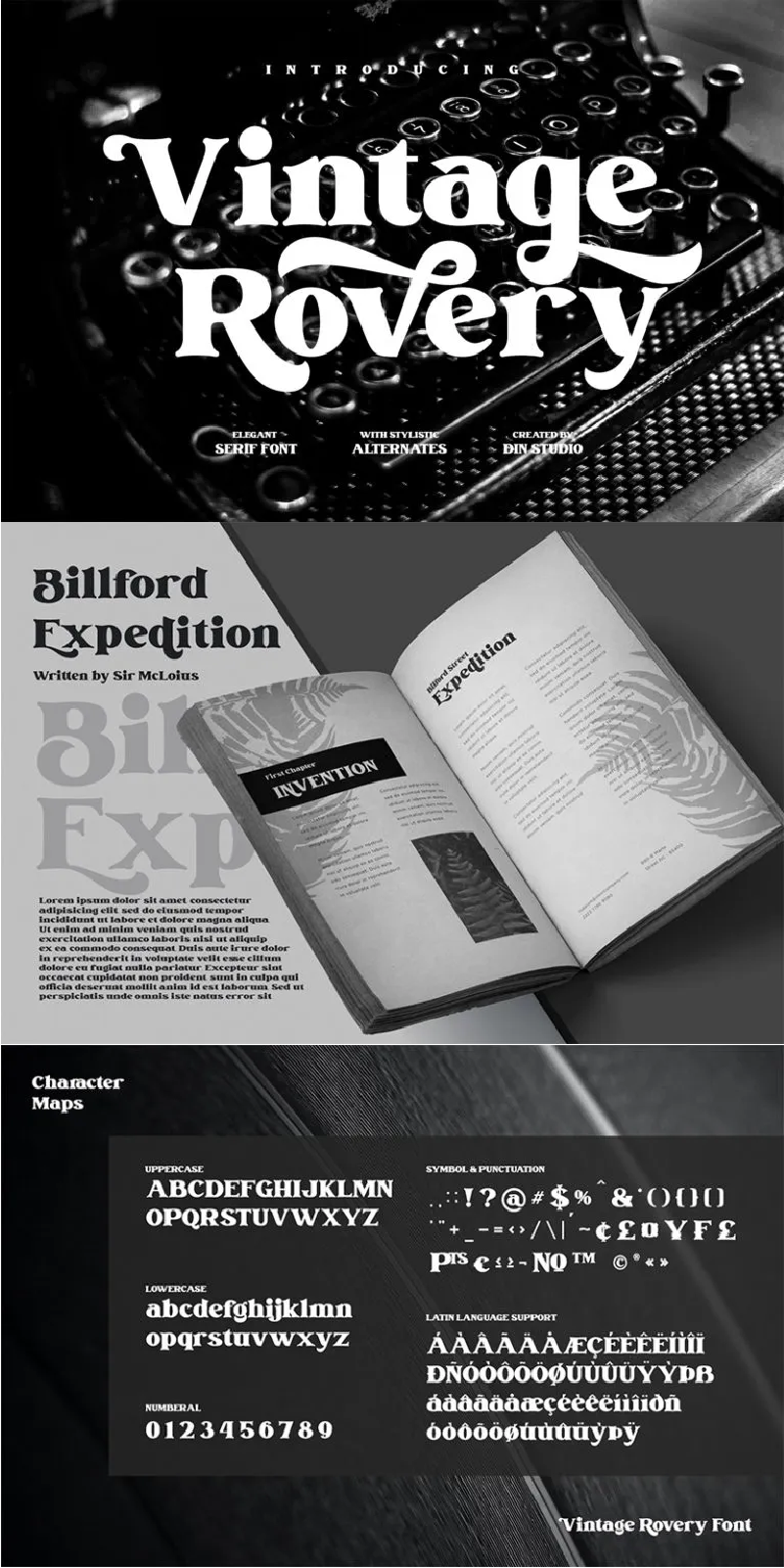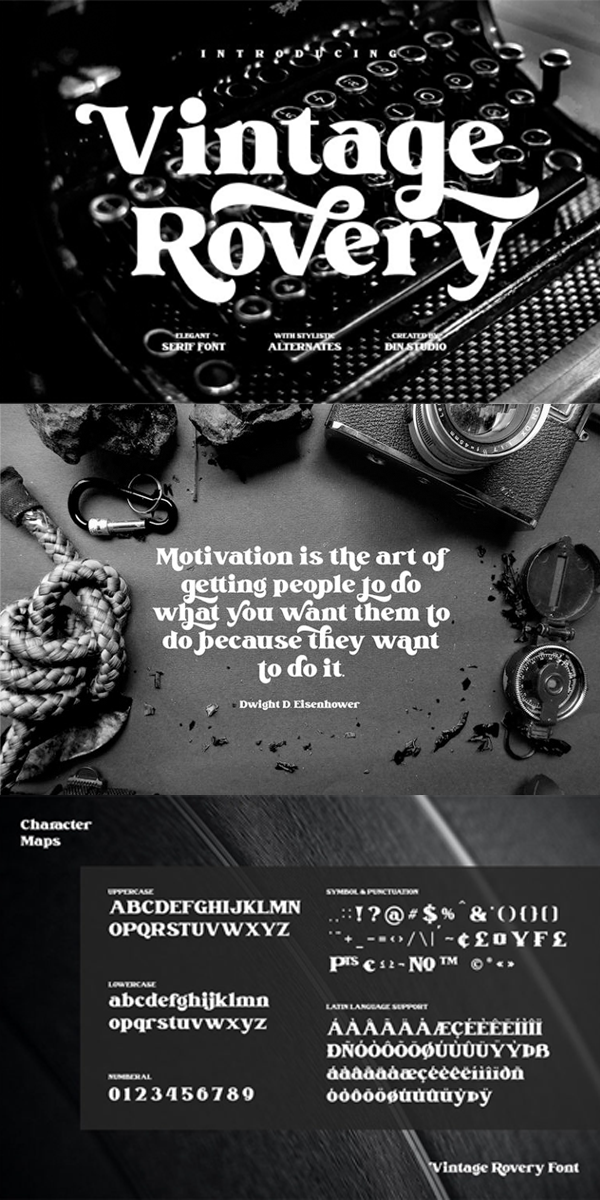
Vintage Rovery Font
About Vintage Rovery
Vintage Rovery – A Serif Font.
The elegant typeface style looks very interesting for loads of different projects and promotions. It is perfect to use on your websites, social media brandings, Pinterest banners, printed products, and more! See the previews above to get to know how to use them. Happy designing!
-Standart Ligatures